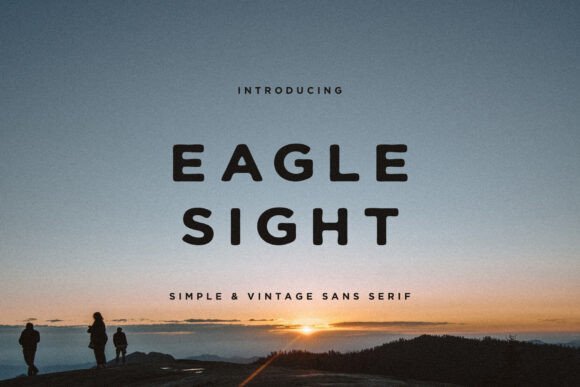
Eagle Sight Font: Unlocking Timeless Elegance for Your Brand
In the realm of typography, few fonts manage to capture the essence of timeless charm and vintage allure as effectively as Eagle Sight. This meticulously handcrafted font has been designed to bring a touch of classic elegance to any branding concept, logo, or creative project. With its elegantly simple lines and crisp edges, Eagle Sight stands out as an excellent selection for those looking to create unforgettable logos or breathe new life into their branding concepts.
Key Features of Eagle Sight Font
- Elegantly Simple Lines: Eagle Sight boasts clean and straightforward lines that contribute to its timeless appeal. This simplicity ensures that the font remains versatile and can be used across various platforms and applications.
- Crisp Edges: The crisp edges of Eagle Sight add a layer of sophistication and clarity, making it perfect for creating logos, headings, and other design elements that require precision and elegance.
- Versatile Design Principles: One of the standout features of Eagle Sight is its versatility. The font is designed to seamlessly blend with other vintage-style fonts, allowing designers to create rich and layered typographic experiences.
Discover the Endless Possibilities with Eagle Sight
Eagle Sight is more than just a font; it’s a creative tool that unlocks a world of possibilities for designers, branding experts, and anyone looking to add a touch of classy nostalgia to their projects. Whether you’re crafting mockups, developing distinctive identities, or simply looking for a font that exudes timeless elegance, Eagle Sight is the clear-cut choice.
Branding and Logos
For branding and logo creation, Eagle Sight offers a unique combination of simplicity and sophistication. Its vintage allure can help brands appear more established and trustworthy, making it an excellent choice for:
- Logos
- Brand guidelines
- Marketing materials
Creative Projects
Beyond branding, Eagle Sight can elevate a wide range of creative projects, including:
- Web design
- Print design
- Packaging
- Advertising
Digital and Print Media
Eagle Sight’s versatility extends to both digital and print media, making it an invaluable asset for designers working across different platforms. Its legibility and aesthetic appeal ensure that it performs exceptionally well in:
- Website headings and content
- Social media graphics
- Brochures and flyers
- Business cards and letterheads
The Benefits of Choosing Eagle Sight
Selecting Eagle Sight for your design projects comes with numerous benefits, including:
- Timeless Appeal: Eagle Sight’s design ensures that your projects remain relevant and stylish for years to come.
- Versatility: The font’s adaptability to different contexts and mediums makes it a valuable addition to any designer’s toolkit.
- Elegance: Eagle Sight brings a level of sophistication and class that can elevate any project.
- Easy to Read: Despite its elegant design, Eagle Sight maintains excellent legibility, making it suitable for both headings and body text.
Maximizing the Impact of Eagle Sight
To get the most out of Eagle Sight, consider the following tips:
- Pair with Complementary Fonts: While Eagle Sight is versatile enough to stand alone, pairing it with complementary fonts can add depth and interest to your designs.
- Experiment with Weights: If Eagle Sight comes in multiple weights, experiment with them to create visual hierarchy and emphasis in your designs.
- Consider Context: Think about where and how Eagle Sight will be used. Its elegance and simplicity make it suitable for a wide range of applications, but tailoring its use to the specific context can enhance its impact.
Eagle Sight font stands out as a beacon of timeless elegance in the vast sea of typography. Its meticulous design, characterized by elegantly simple lines and crisp edges, makes it an excellent choice for anyone looking to add a touch of vintage allure to their projects. Whether you’re creating logos, branding materials, or engaging in creative projects, Eagle Sight offers a versatile and sophisticated solution. Unlock a world of creative narratives with Eagle Sightβthe clear-cut choice for those who appreciate the beauty of timeless design.